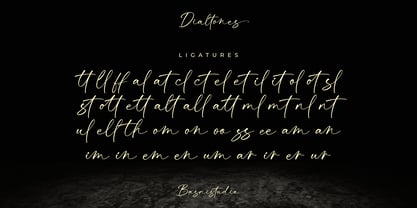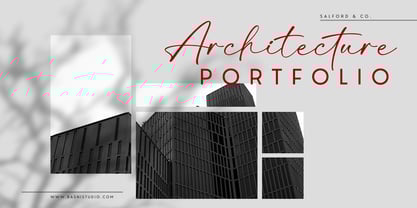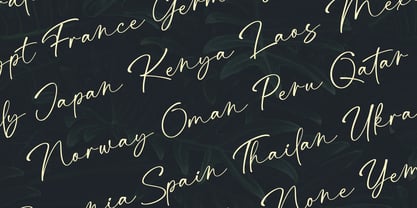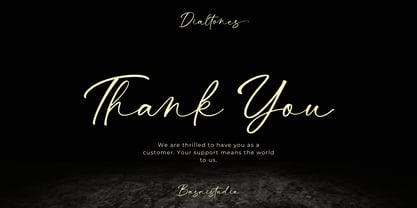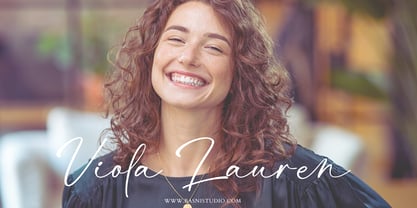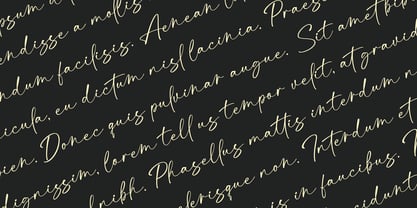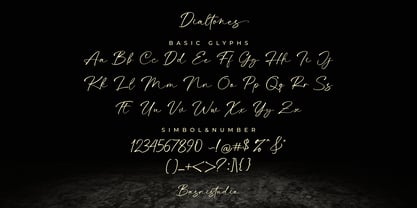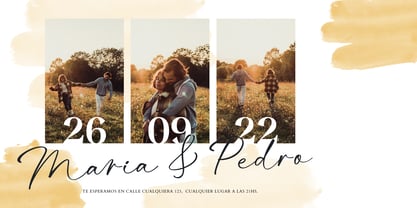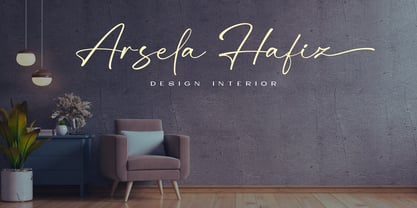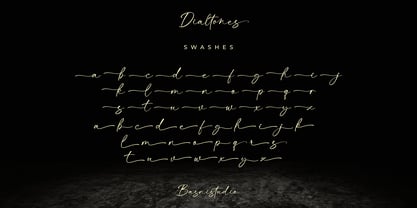
Dialtones
by Basnistudio
The Dialtones Font Family was designed by Bery Arisandi and published by Basnistudio. Dialtones contains 1 styles. More about this family
Dialtones – Casual Handwritten Font Handwritting Font Created with real pen strokes for a natural look and casual touch to everything from branding and social media to invitations and packaging. Natural & Casual – Perfect for tagline, quotes, greeting cards, and more Authentic Handwritten Feel – Created with real pen strokes for a natural look Easy to Use – Works seamlessly with all major design programs Whether you’re building a powerful brand identity or crafting a standout design, Dialtones – Casual Handwritten Font Created with real pen strokes for a natural look gives you the creative edge you need. What’s Included: Uppercase & lowercase letters swashes & ligatures Numbers & punctuation Multilingual Support ( Support for 90 languages ) If you have any questions please don’t hesitate to contact me. Thank You Very Much
Designers: Bery Arisandi
Foundry: Basnistudio